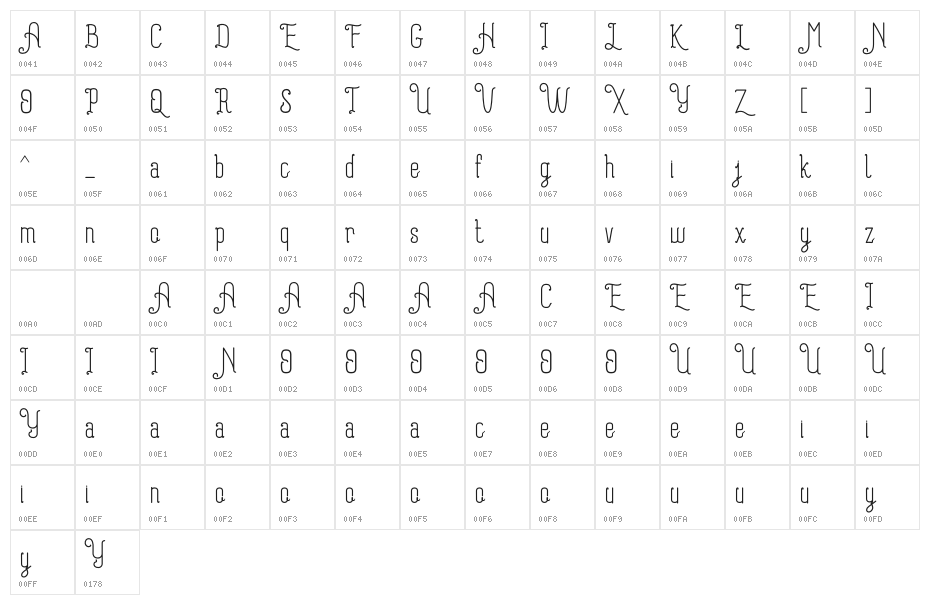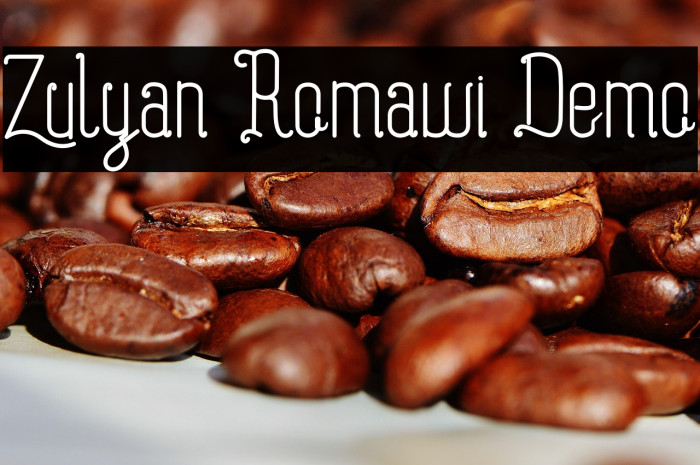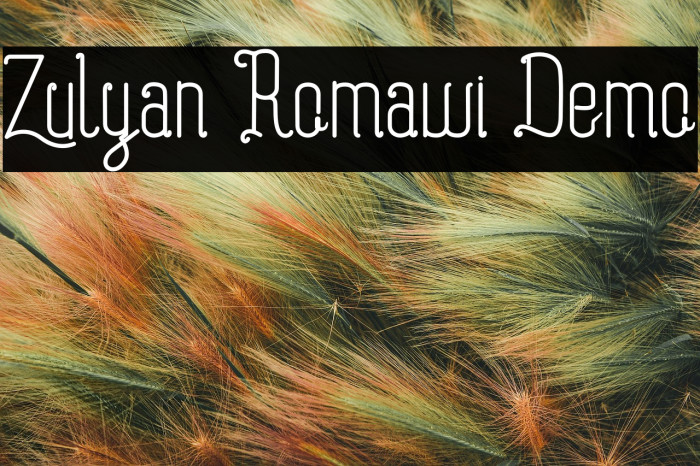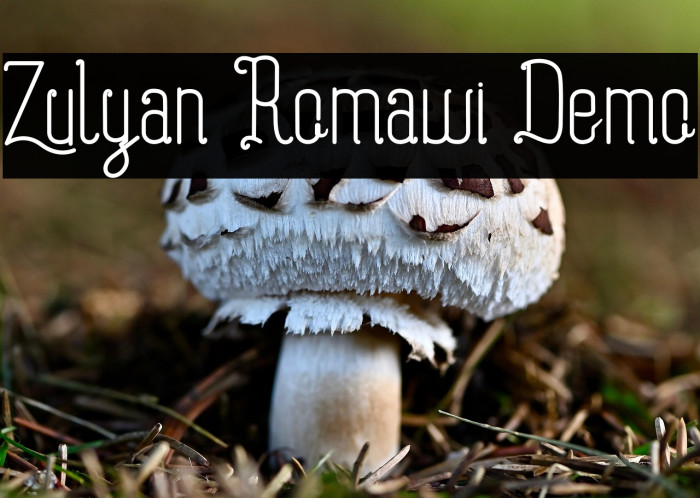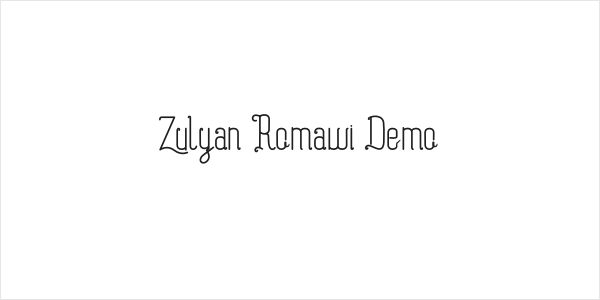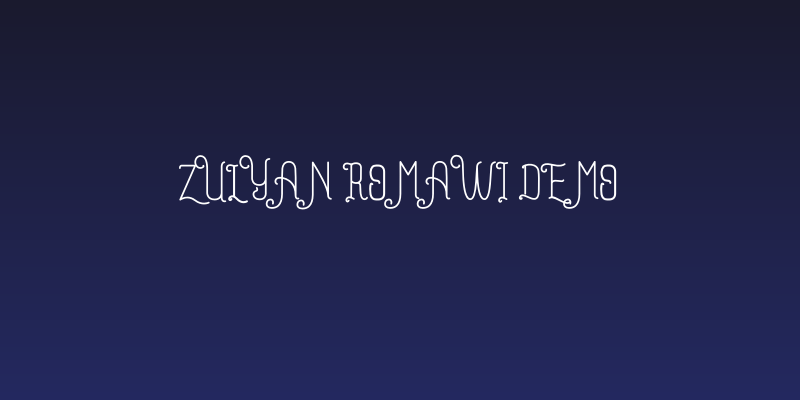
Zulyan Romawi Demo Font
Zulyan Romawi Demo Description
This font features a decorative and elegant style with unique, swirling serifs that give it a whimsical and artistic appearance. The uppercase letters are particularly ornate, with extended strokes and loops that add a sense of movement and flair. The lowercase letters maintain a more restrained design, yet still carry the distinctive curves and lines that characterize the font. The overall look is both sophisticated and playful, making it suitable for creative and expressive projects. The absence of numbers and special characters suggests a focus on artistic lettering rather than functional text.
| Use Case | Headlines, Artistic projects, Branding |
| Proposed Projects | Ideal for invitations, greeting cards, artistic posters, and branding that requires a touch of elegance and creativity. |